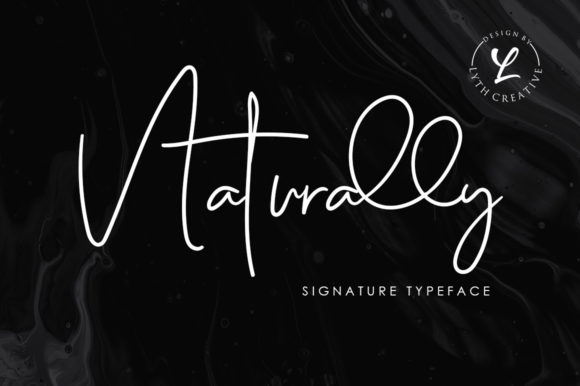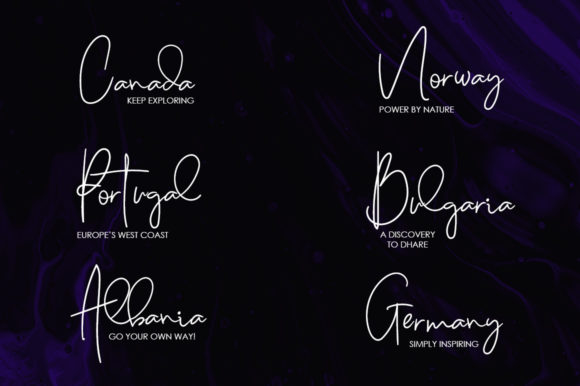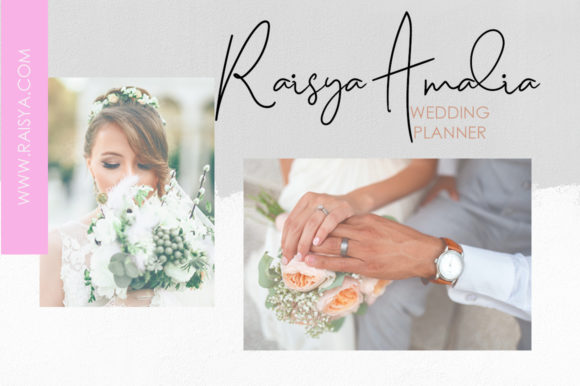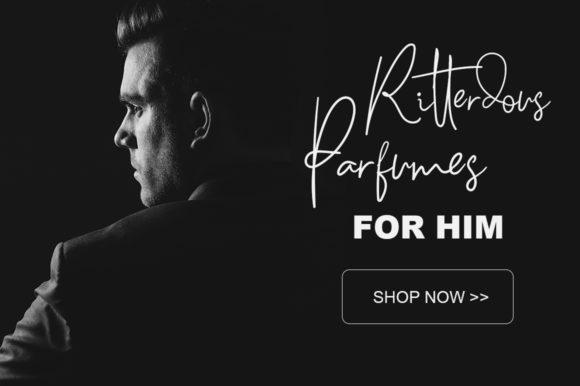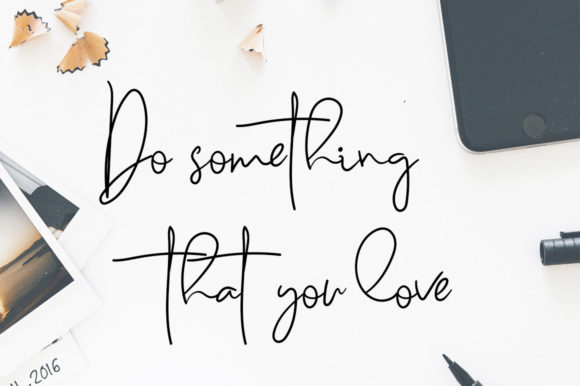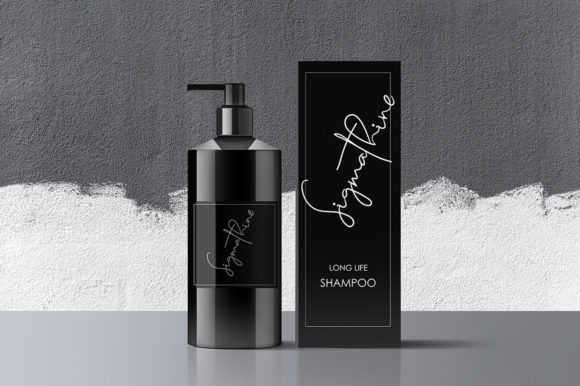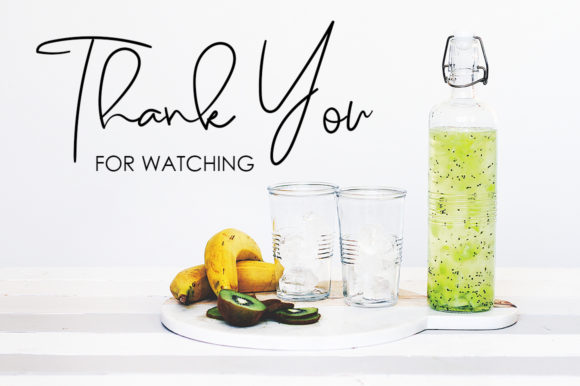
HomeScript FontsNaturally Font Script Fonts Naturally Font FacebookXPinterestWhatsApp Naturally Font Poster 2 Naturally Font Poster 3 Naturally Font Poster 4 Naturally Font Poster 5 Naturally Font Poster 6 Naturally Font Poster 7 About Naturally Font Naturally is a stylish and light handwritten font with loads of authenticity! Fall in love with its bold swashes. DOWNLOAD ON CREATIVE FABRICAThis font is sold and delivered by Creative Fabrica. Font Canyon may earn a commission if you buy through this link. People also explored Morning Signature Font Smart Dolphin Font Berkahi Font Grumpys Font Reading Font Friday Hunter Font Haunted Font Bagato Font Novita 269 0 TagsNaturally Font Previous articleDelish FontNext articleLendiga Font LEAVE A REPLY Cancel reply Comment: Please enter your comment! Name:* Please enter your name here Email:* You have entered an incorrect email address! Please enter your email address here Website: Save my name, email, and website in this browser for the next time I comment. Personal Use Free Cuttering Personal Use Free Read more about this font Abberancy Personal Use Free Read more about this font Blessed Font Personal Use Free Read more about this font Mail Ray Stuff Personal Use Free Read more about this font BLOG Best Fonts for T-Shirt Design – Top 2025 Picks In 2025, t-shirt design has become more than just fashion—it's a form of self-expression. Whether you're... Transform Your Website: Elevate Your Typography with 7 Best Web Font Generators 5 Fonts That Will Dominate Design Trends in 2026 Exploring Font Trends